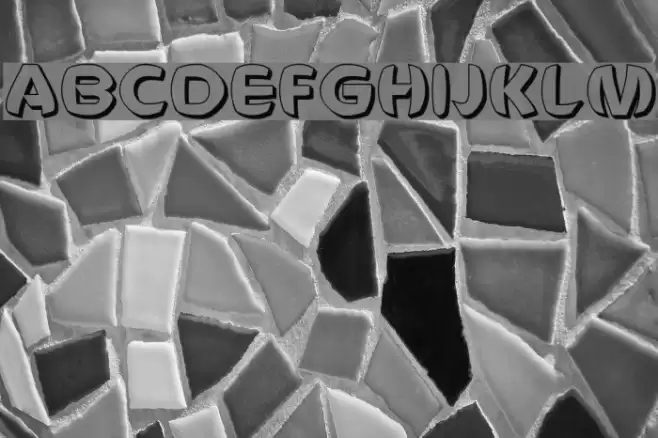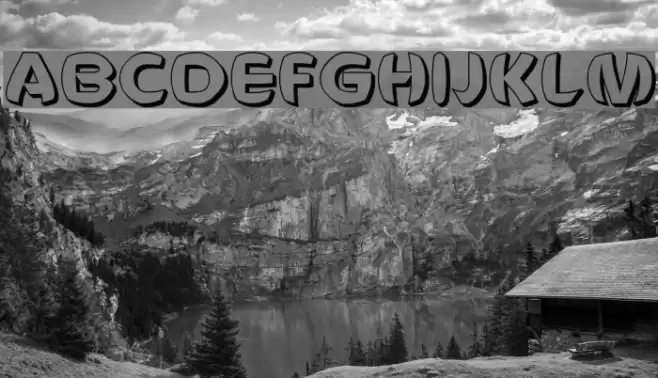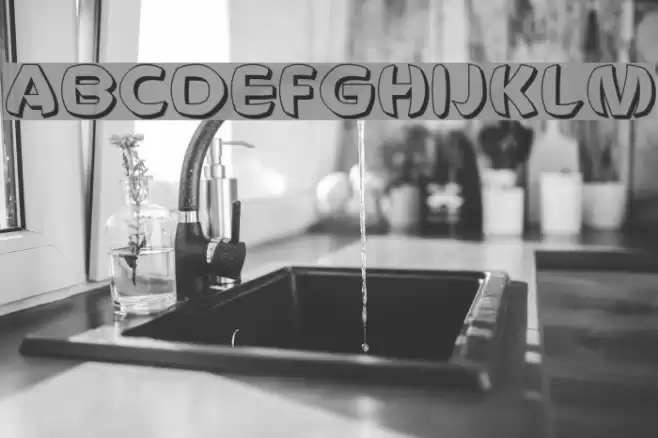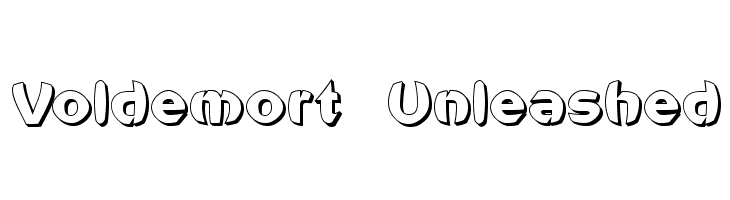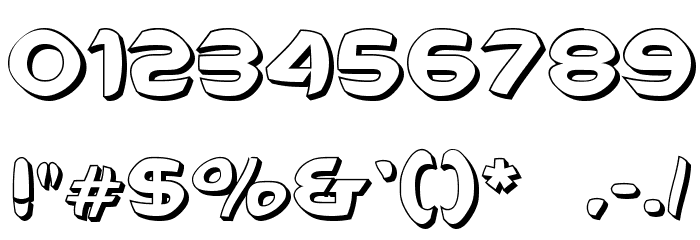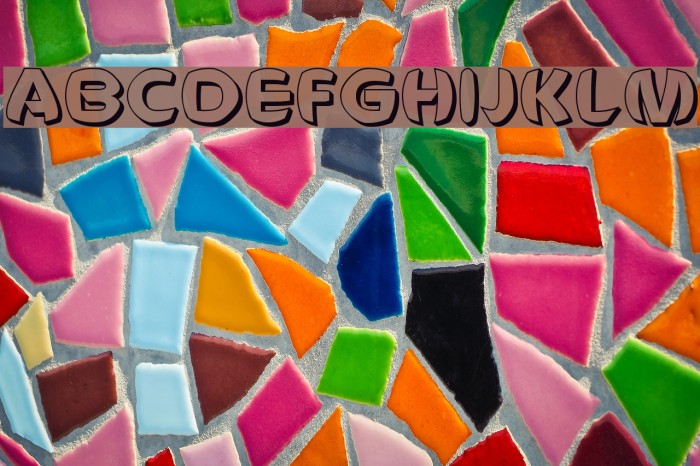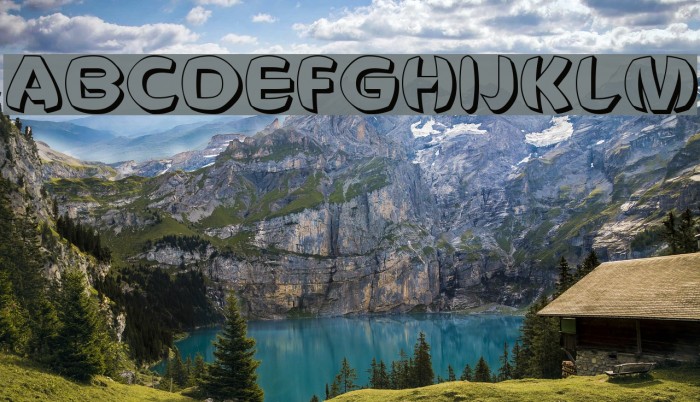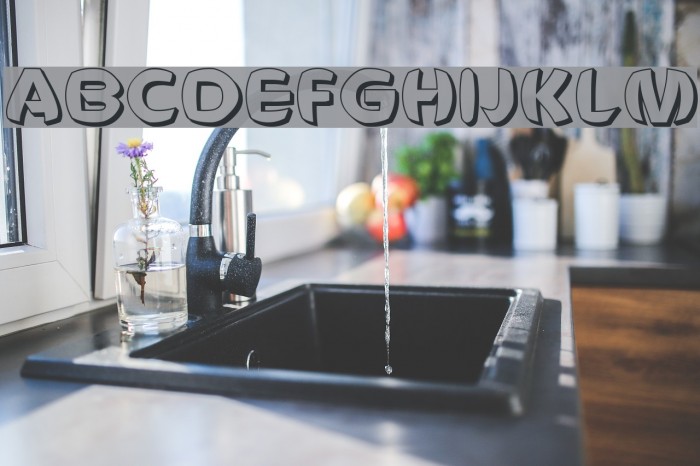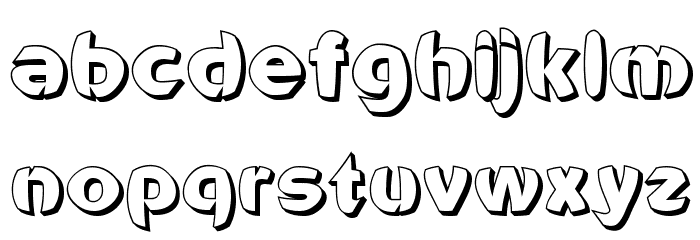
Voldemort Unleashed Font
Voldemort Unleashed Description
This font features a bold, playful style with a three-dimensional effect, giving each character a shadowed appearance. The letters are rounded and thick, creating a sense of depth and movement. The uppercase and lowercase characters maintain a consistent style, with the lowercase letters slightly smaller but equally bold. Numbers and special characters follow the same design principles, ensuring uniformity across all elements. The font's unique shadowing adds a dynamic and eye-catching quality, making it suitable for creative and informal applications.
A bold, playful font with a three-dimensional shadow effect from Uncategorized fonts.
- Proposed Projects: Ideal for comic book titles, children's book covers, playful branding, and eye-catching posters.
- Overall Style: Playful, Dynamic